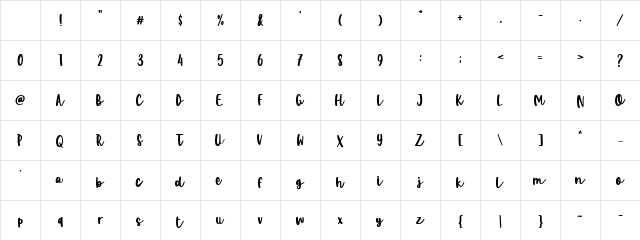
Complete Butter Tropical Script Demo Ver Regular glyph index. Displaying only characters natively supported by Butter Tropical Script Demo Ver Regular font.
Butter Tropical Script Demo Ver flows with the natural rhythm of handwritten lettering, making it ideal for designs that call for warmth and personal expression.
Font Pairing: Combine Butter Tropical Script Demo Ver with a simple geometric sans for maximum contrast - the tension between flowing curves and clean structure is a classic typographic pairing.
Pro Tip: Use Butter Tropical Script Demo Ver for short runs of text - names, titles, or taglines. Extended body copy in script faces tires the eye quickly.